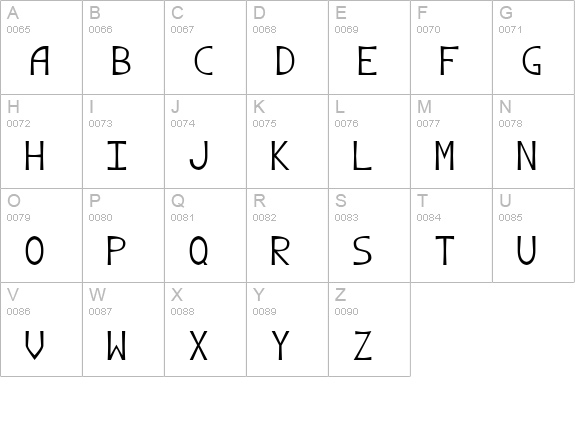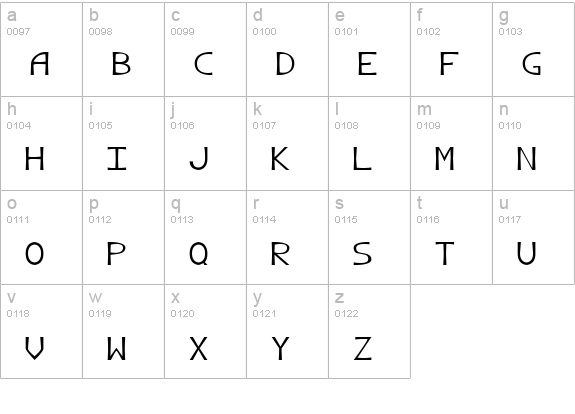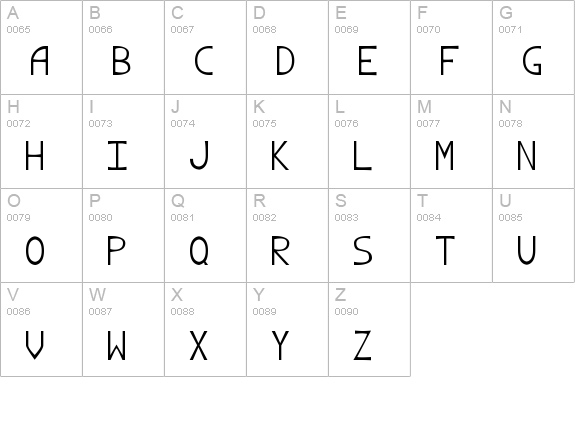
Angelus™ Font Details
Angelus™ font is a stunning and elegant typeface that exudes sophistication and charm. With its delicate lines and graceful curves, Angelus™ is a perfect choice for projects that require a touch of beauty and refinement. This timeless font is versatile and can be used for a variety of design purposes, from wedding invitations to branding materials. What makes Angelus™ font even more appealing is that it is completely free to download at FontsMarket.com. This means that you can access this exquisite font at no cost and use it in your projects without any restrictions. Don't miss out on the opportunity to add Angelus™ font to your collection and elevate your designs with its timeless elegance.